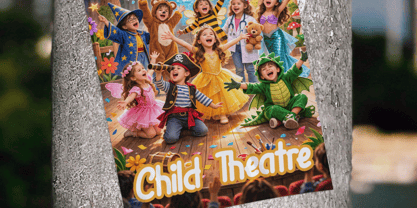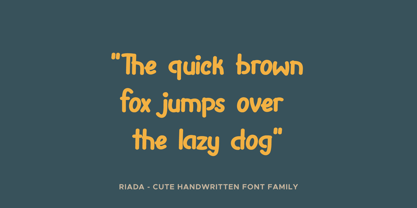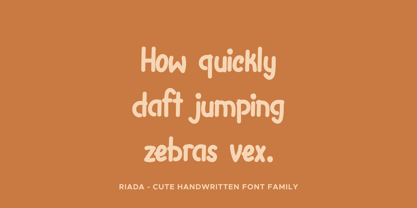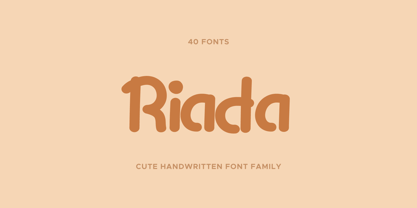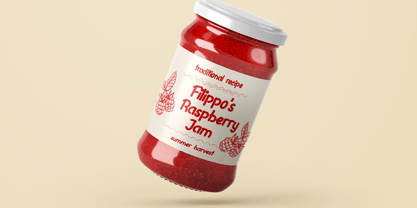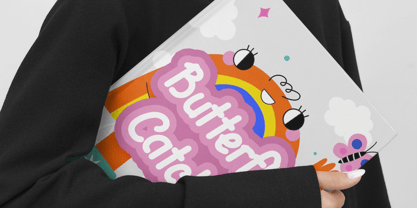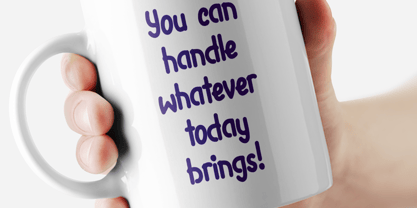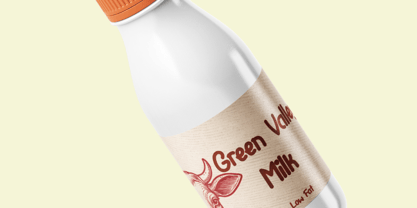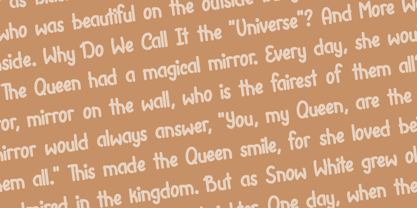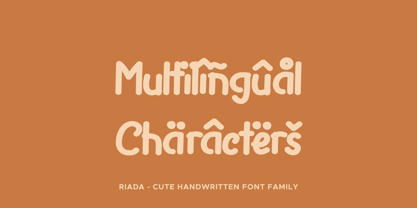
Riada is a versatile handwritten sans serif typeface designed to bring energy, texture, and personality to modern typography. Inspired by natural pen movement and expressive brush lettering, Riada balances a casual handwritten feel with the clarity and structure of a sans serif design.
The typeface was created to work across a wide variety of design styles. Its letterforms maintain consistent readability while introducing subtle irregularities that give the type its handcrafted charm. Riada feels both organic and contemporary, making it suitable for branding, editorial layouts, packaging, posters, social media graphics, and creative digital projects.
What makes Riada especially flexible is its large family of expressive styles. From clean and minimal to distressed and textured, each variant adds a different mood while maintaining the same core structure. Designers can easily switch between polished looks and gritty, tactile aesthetics without changing the overall typographic voice.
The family includes multiple texture-based styles such as Brush, Ink, Rough, Rust, Scratch, Worn, Grit, and Eroded. Each style is also available in italic and outline versions, allowing designers to layer, combine, and experiment with striking visual compositions. The result is a powerful toolkit for creating dynamic headlines, expressive branding, and handcrafted typography.
Despite its expressive personality, Riada remains highly functional. Its handwritten construction is carefully balanced to preserve legibility across print and digital environments. The design works well in both large display settings and smaller typographic uses where character and authenticity are desired.
Riada also supports a wide range of languages, making it suitable for international design projects. Its extensive language coverage allows designers to maintain a consistent typographic voice across global audiences.
Whether used for bold headlines, creative branding, packaging design, posters, or digital content, Riada delivers a handcrafted aesthetic with the flexibility of a large modern type family.
Riada is where expressive handwriting meets structured sans serif design.